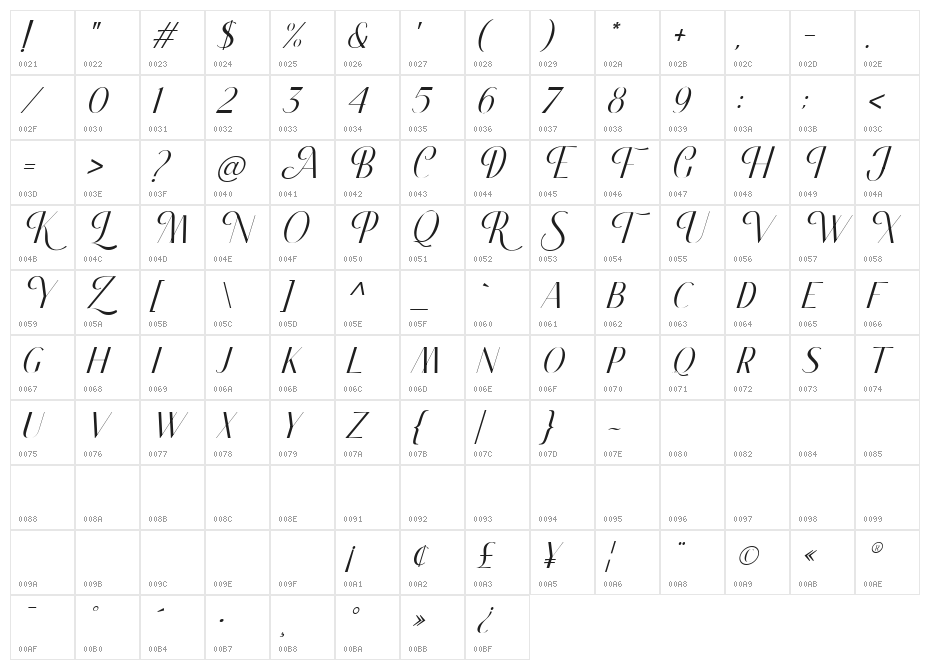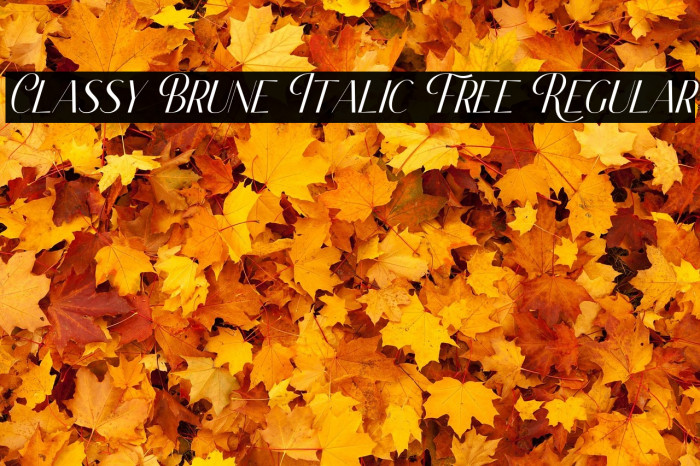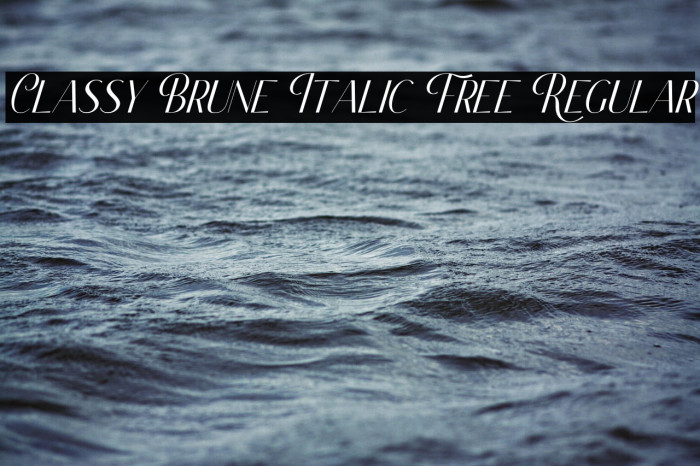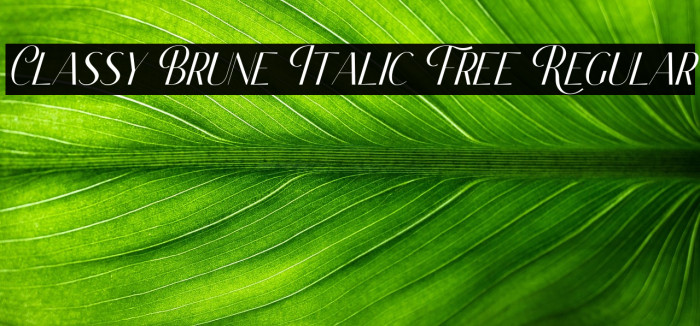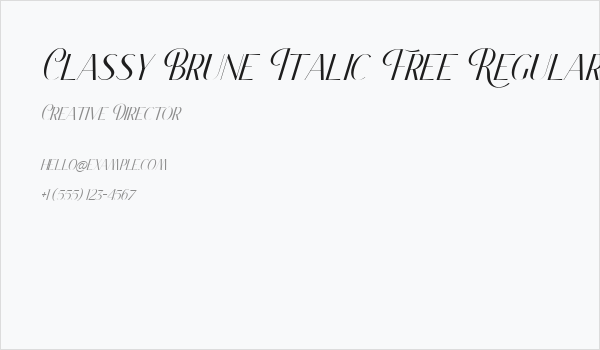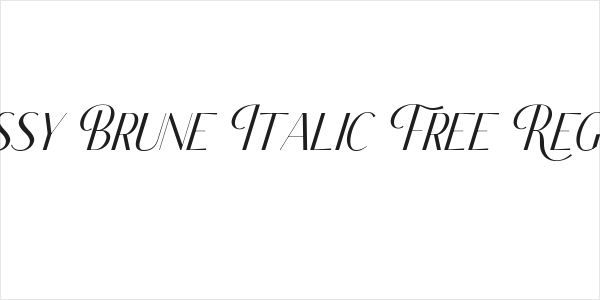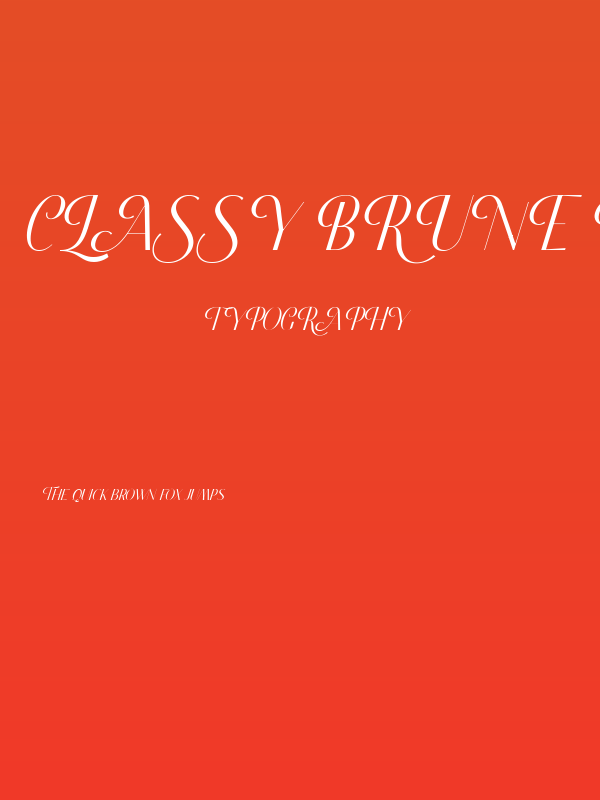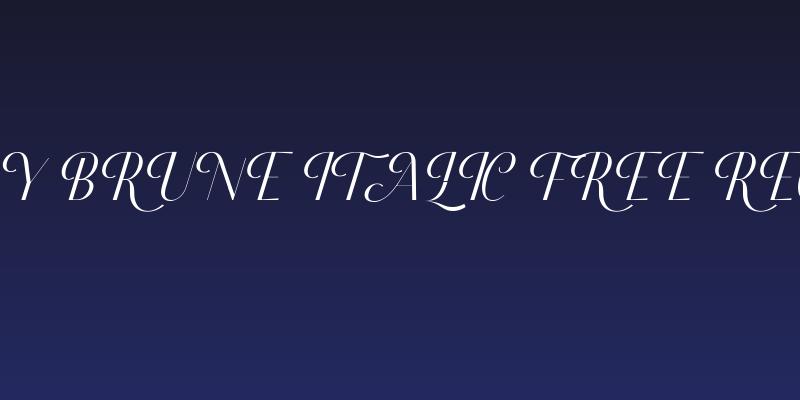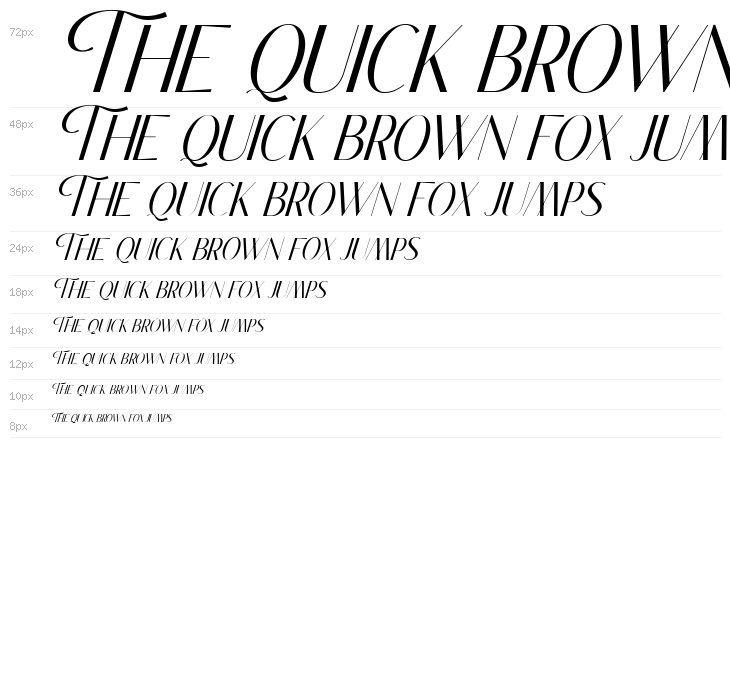
Classy Brune Italic Free Regular Font
Classy Brune Italic Free Regular Description
This elegant font features a sophisticated italic style with a modern twist. The characters are gracefully slanted, giving a sense of motion and fluidity. The strokes are thin and delicate, yet maintain a strong presence, making it suitable for both formal and creative applications. The uppercase letters exhibit a refined flair, while the lowercase letters maintain a consistent flow. The numerals are sleek and align well with the overall aesthetic. Special characters are thoughtfully designed, complementing the font's elegant nature.